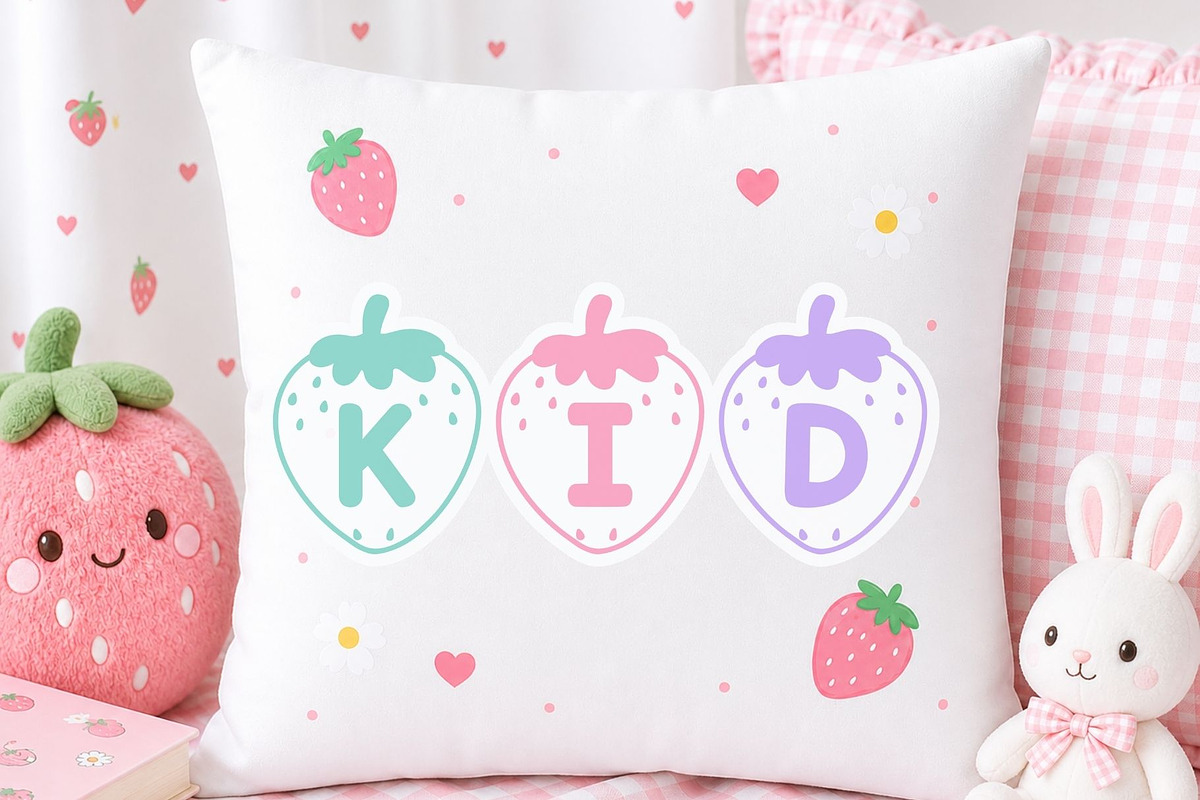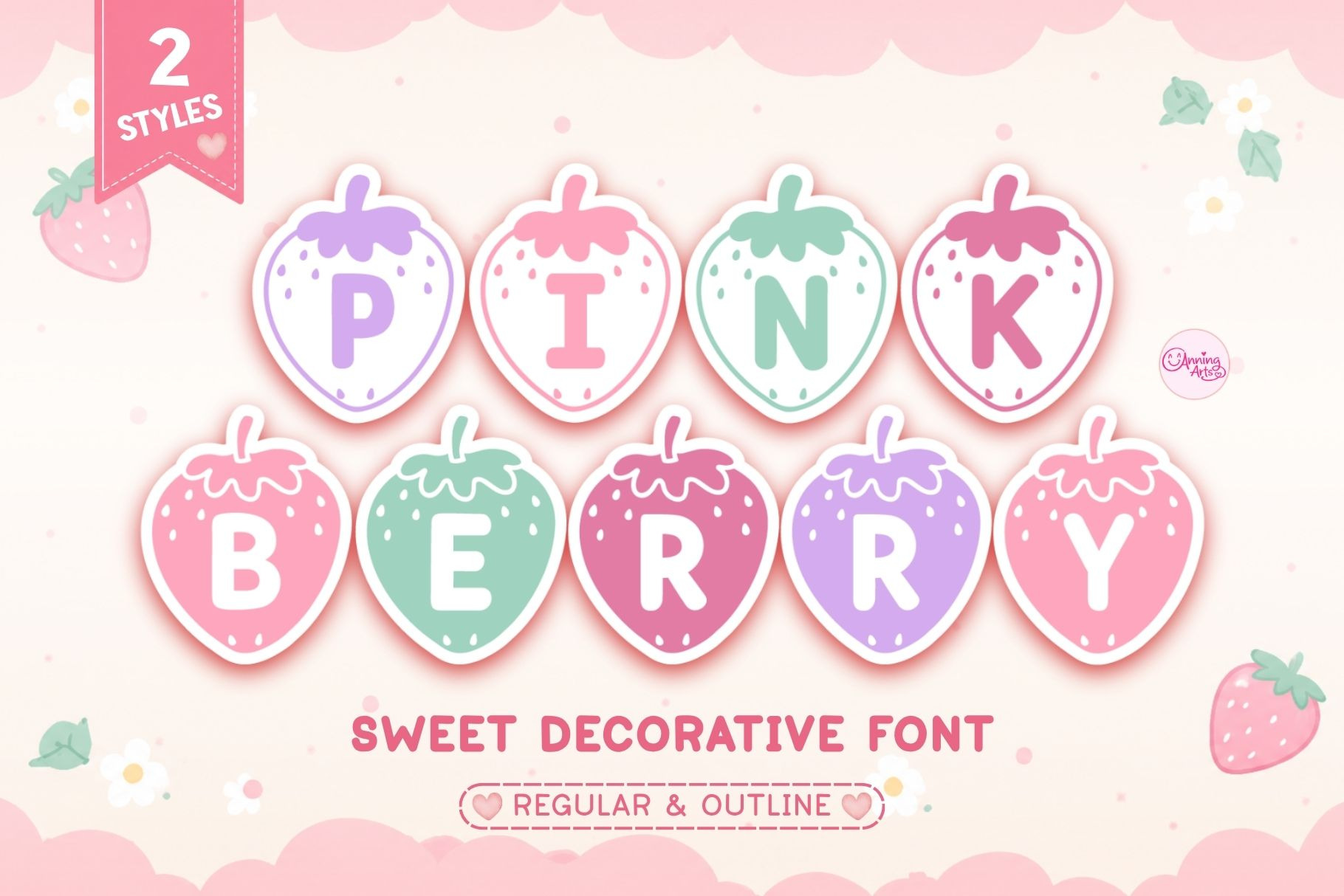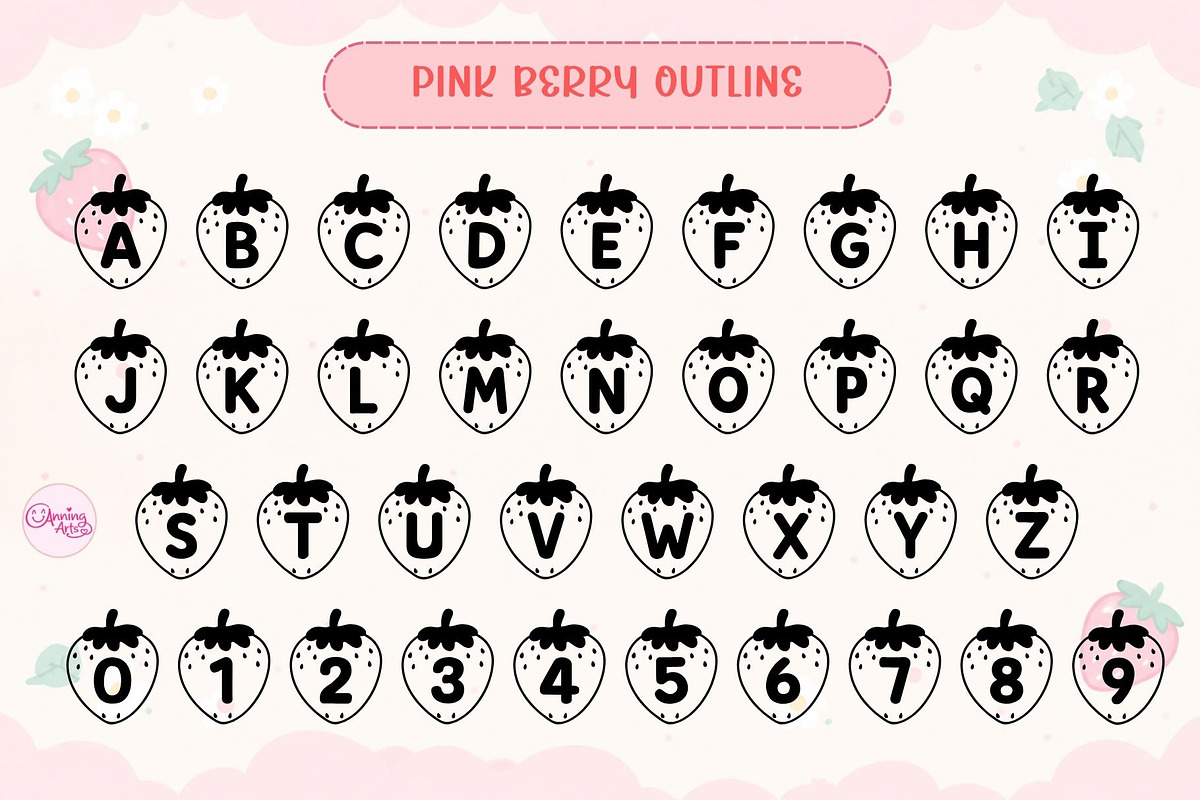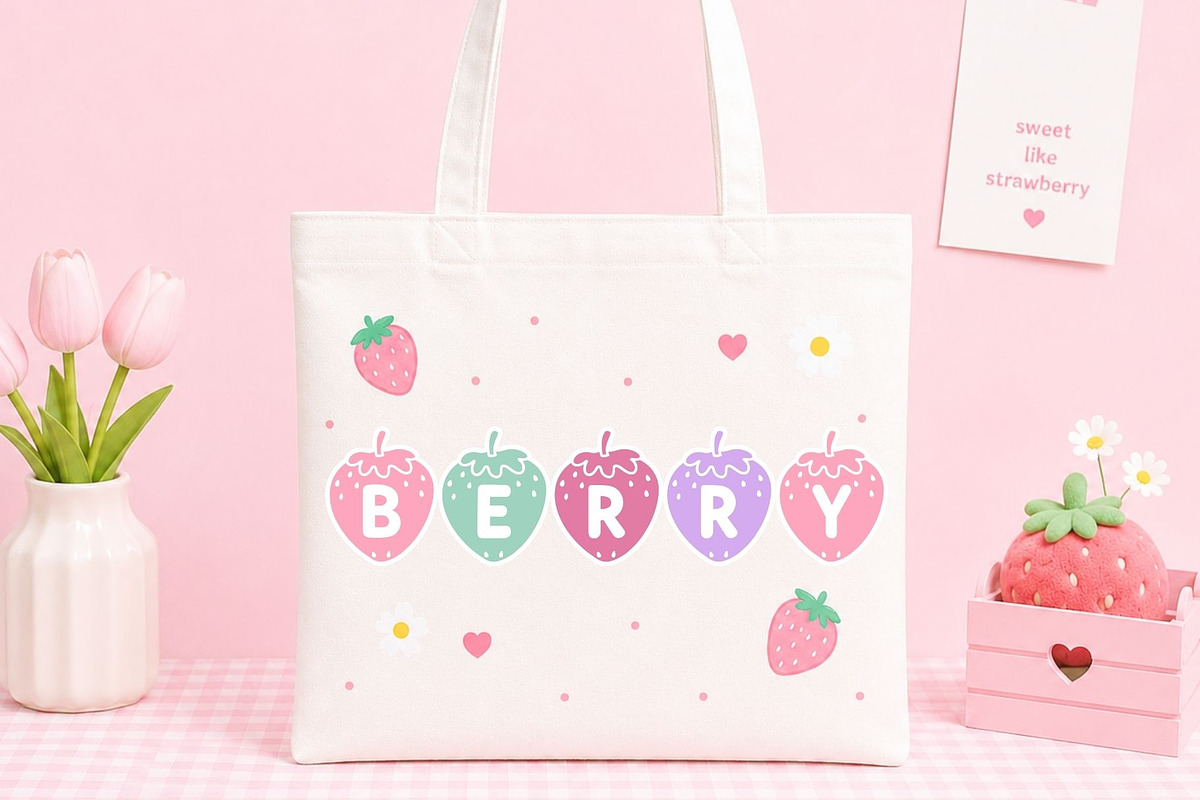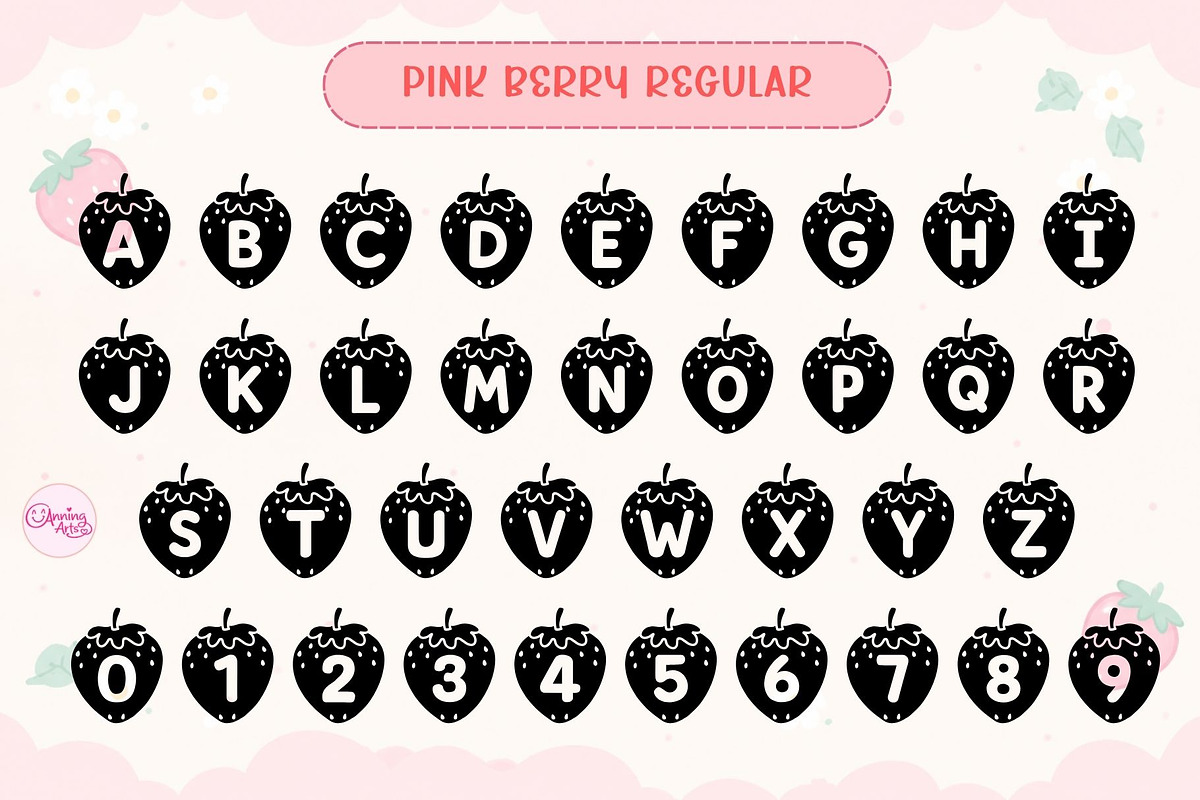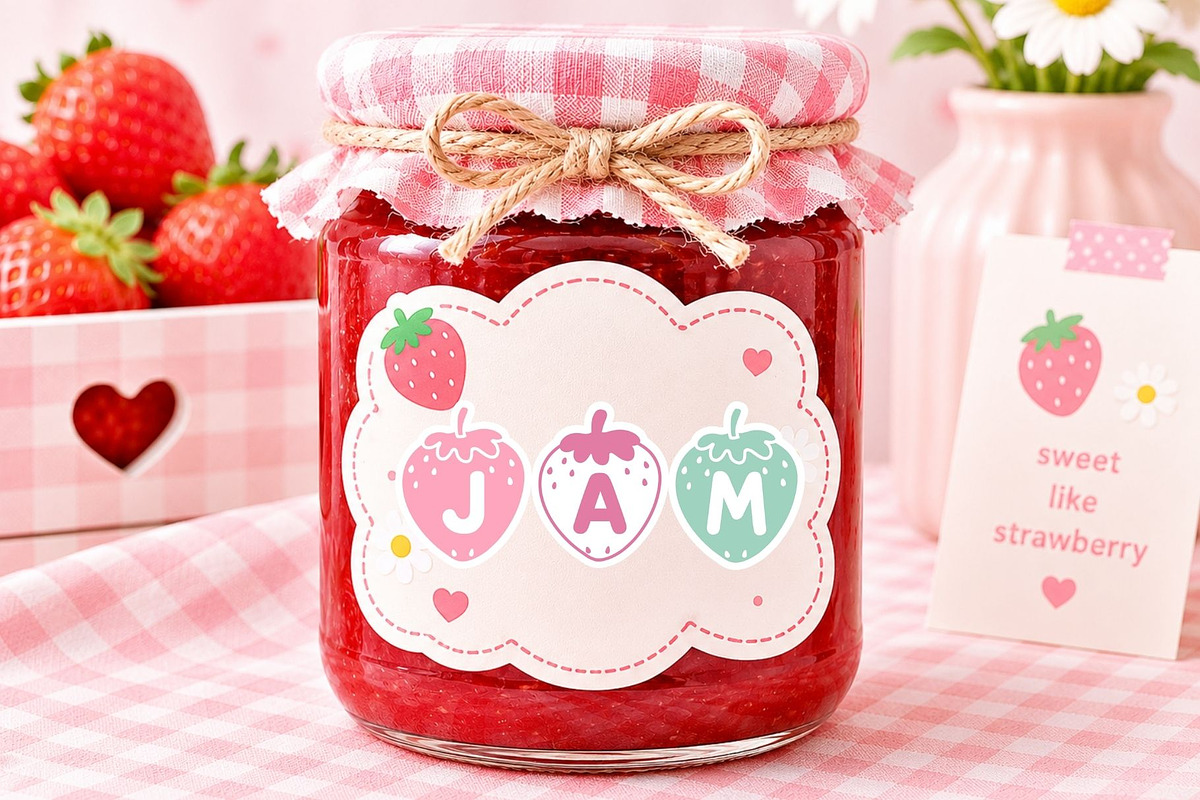
Pink Berry - sweet decorative font
Pink Berry is a sweet and playful strawberry-themed font duo featuring both Regular and Outline styles. This cute decorative display font is perfect for creating adorable crafts, sublimation designs, stickers, shirts, tote bags, mugs, packaging, classroom decor, and more.
Each character is designed inside a charming strawberry shape with a soft kawaii pastel aesthetic, making this font ideal for kids projects, feminine branding, Valentine designs, strawberry themes, and cute handmade products.